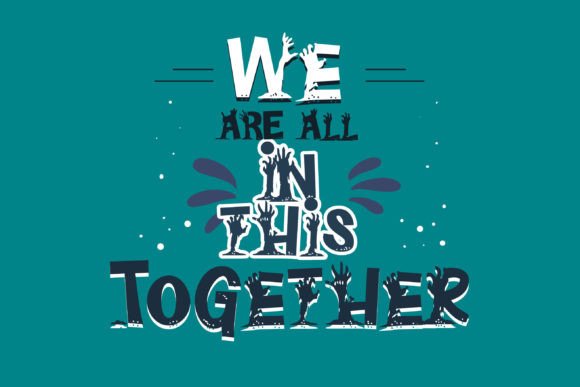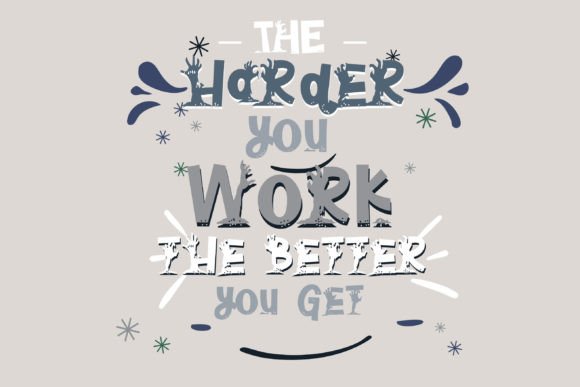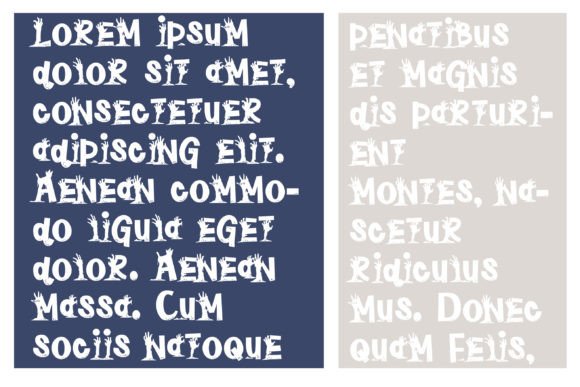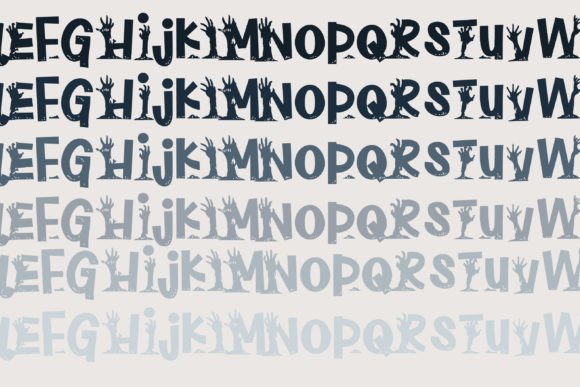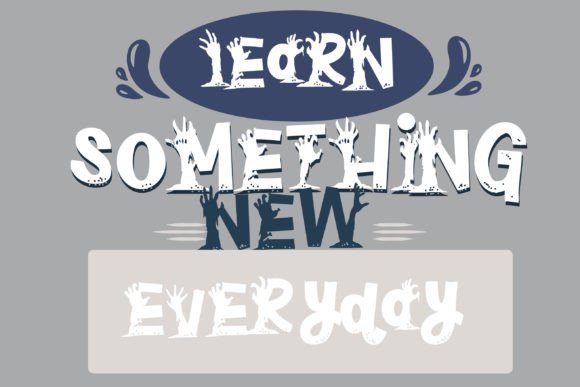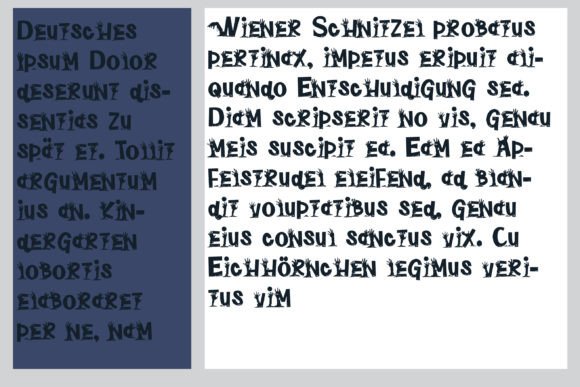
Introduction to Plague Font
As designers, we’ve all been there – staring at a blank canvas, struggling to find the perfect font to bring our creative project to life. It’s that moment of frustration, just before the magic happens, that makes all the difference. And that’s exactly what the Plague Font does – it transports your designs into a whimsical world, making them truly unforgettable.
With its modern yet enchanting style, the Plague Font is a game-changer for designers. This high-quality font is not only a valuable design resource but also a free download, making it accessible to creatives of all levels. Whether you’re working on a graphic design project or need a font for your logo, the Plague Font is sure to impress with its transparent background and intricate details.
So, what makes the Plague Font so special? Let’s dive in and explore its unique features, and discover why it’s a must-have for any designer looking to add a touch of magic to their work.
Key Features of Plague Font
- High-quality font design with a unique, eerie aesthetic, perfect for creative projects that require a mysterious tone.
- Comes with a transparent background, allowing for seamless integration into various design elements and backgrounds.
- Features a large character set, including uppercase and lowercase letters, numbers, and punctuation marks.
- Designed with a high resolution (up to 1024 x 1024 pixels), ensuring crisp and clear rendering in various sizes and resolutions.
- Perfect for use in horror-themed designs, gothic-inspired art, and other creative projects that require a dark, mysterious tone.
Honest Review: Plague Font
I recently stumbled upon the Plague Font, and I’m excited to share my honest review. As a designer, I’m always on the lookout for high-quality design resources to elevate my creative projects. The Plague Font definitely delivers.
- ✨ The font’s unique design and style make it perfect for projects that require a touch of darkness and mystery.
- ✨ The transparent background option allows for seamless integration into any design, giving me more creative freedom.
However, I do have a few limitations to mention:
- ⚠️ The font’s character set is limited, which may not be suitable for projects that require a wide range of characters.
- ⚠️ The font may not be as versatile as some other design resources, making it more suited for specific creative projects.
Overall, I’m impressed with the Plague Font’s unique design and quality. While it may have some limitations, it’s a valuable addition to any designer’s toolkit. I would definitely recommend it for designers working on creative projects that require a touch of darkness and mystery.
Tips for Getting the Most Out of Plague Font
Use Plague Font in combination with a transparent background to create a striking visual effect. Experiment with different font sizes and styles to add depth and interest to your design.
Plague Font is a high-quality design resource that can be used in a variety of creative projects, including:
- Posters and advertisements
- Infographics and presentations